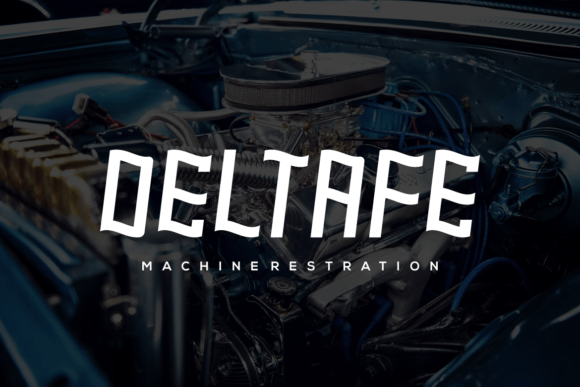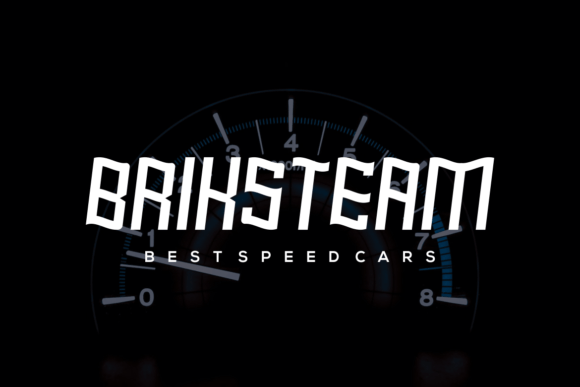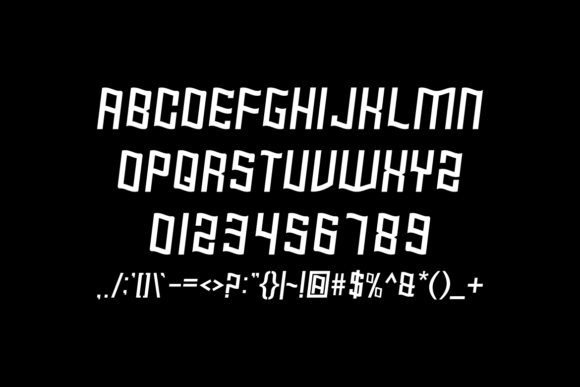
Introduction to Breakton Font
Have you ever been stuck on a creative project, searching for the perfect font to bring your vision to life? You’ve poured your heart and soul into the design, but something’s missing – that one special touch that makes it truly unforgettable. That’s where Breakton Font comes in – a bold and authentic display font that’s sure to elevate your design game.
Whether you’re a seasoned designer or just starting out, Breakton Font is a valuable resource for anyone looking to add some excitement to their creative project. With its versatility and high quality, it’s perfect for branding, logo design, t-shirt printing, and even esports – the possibilities are endless!
Key Features of Breakton Font
- High-quality design resource ideal for creative projects, offering a unique and stylish aesthetic.
- Features a transparent background, providing designers with flexibility and ease of use in various design applications.
- Comes in a range of sizes, from 12 to 72 points, making it suitable for various design contexts, from small titles to large headings.
- Resolution-independent, ensuring crisp and clear typography across different devices and screens.
- Designed with a focus on legibility and readability, making it an excellent choice for body text and headings in various creative projects.
Honest Review: Breakton Font
I recently had the chance to work with the Breakton Font, and I must say it’s a great addition to any designer’s toolkit. As a design resource, it’s definitely worth considering for your next creative project.
- ✨ High quality typography: The Breakton Font offers crisp, clean lines and a sophisticated feel that’s perfect for a variety of design applications.
- ✨ Transparent background: The font’s transparent background makes it easy to use as a overlay or text element in your designs.
That being said, there are a few limitations to keep in mind:
- ⚠️ Limited character set: The Breakton Font only includes a limited character set, which may not be suitable for more complex design projects.
- ⚠️ Not ideal for small text: Due to its high quality design, the font may not be the best choice for small text elements, as it can be difficult to read.
Overall, I’m impressed with the Breakton Font and think it’s a great option for designers looking for a high-quality, free font. Just be aware of its limitations and use it accordingly.
The Breakton Font is a versatile design resource ideal for creative projects that demand high-quality typography. This free download offers a transparent background, making it perfect for overlaying on images or using as a standalone element.
Tips for Getting the Most Out of Breakton Font
To maximize the effectiveness of the Breakton Font, experiment with different font sizes, colors, and styles. You can also combine the font with other design elements, such as images or graphics, to create a unique and eye-catching visual.
The Breakton Font is ideal for a wide range of creative projects, including:
- Blog posts and articles
- Business presentations
- Infographics